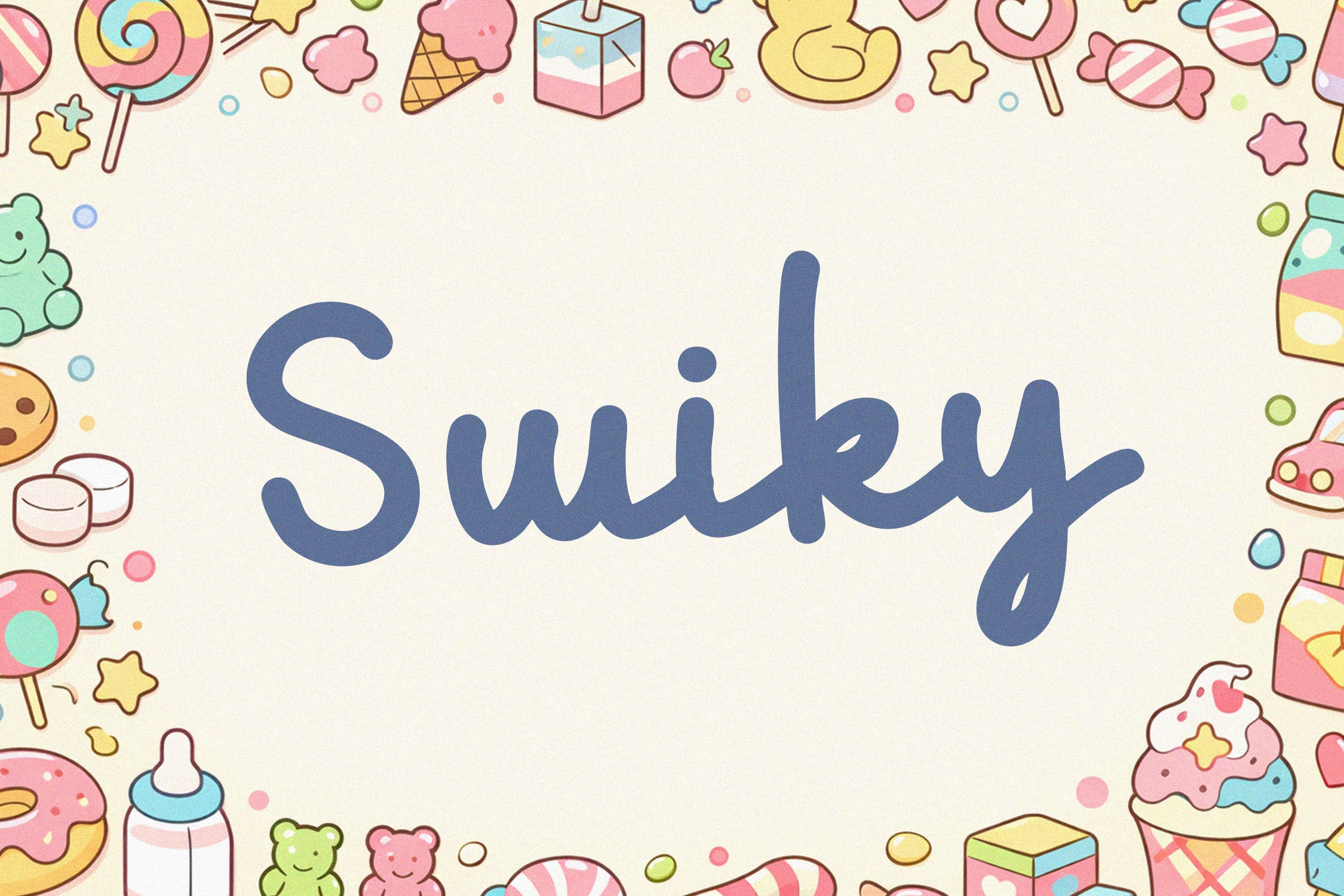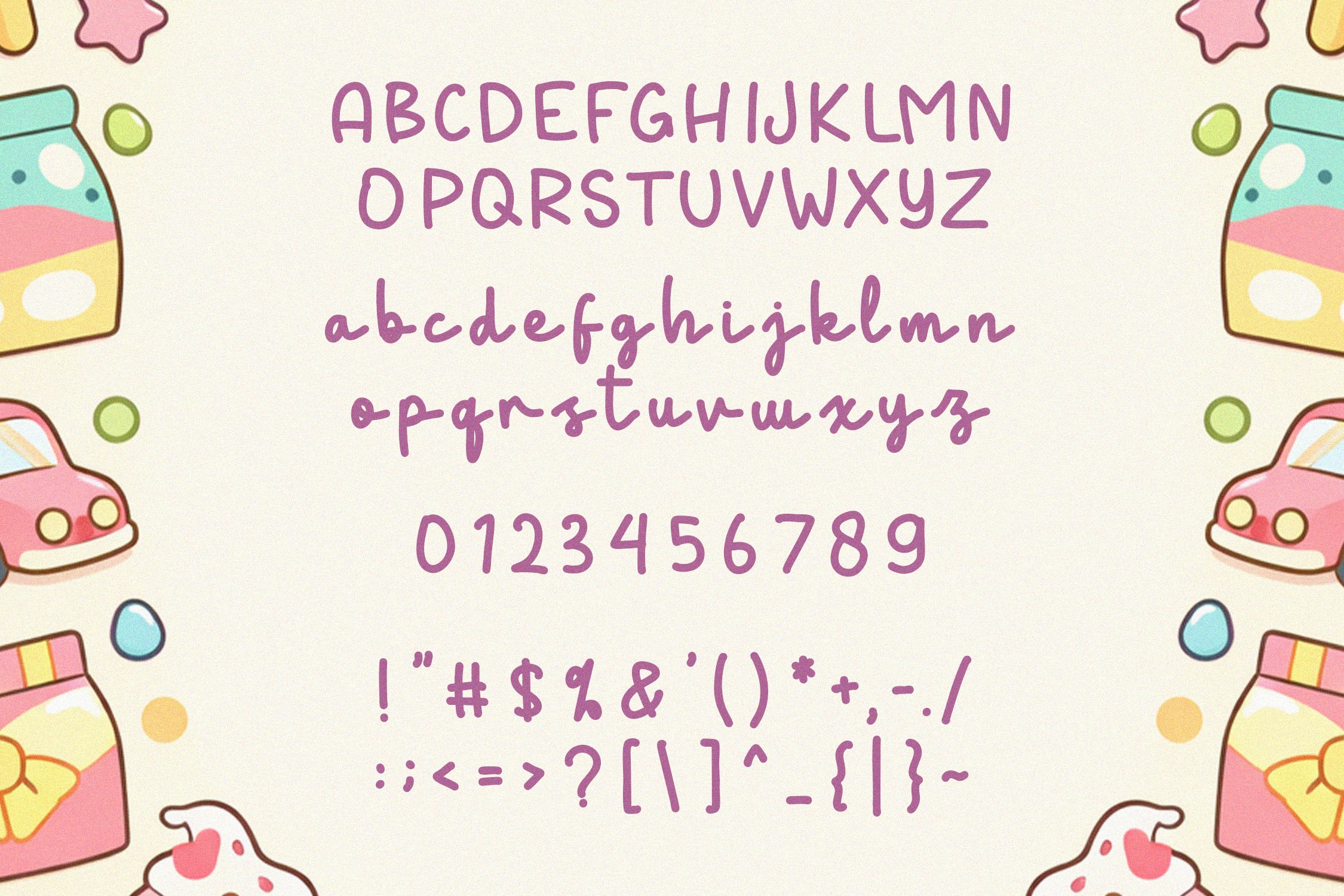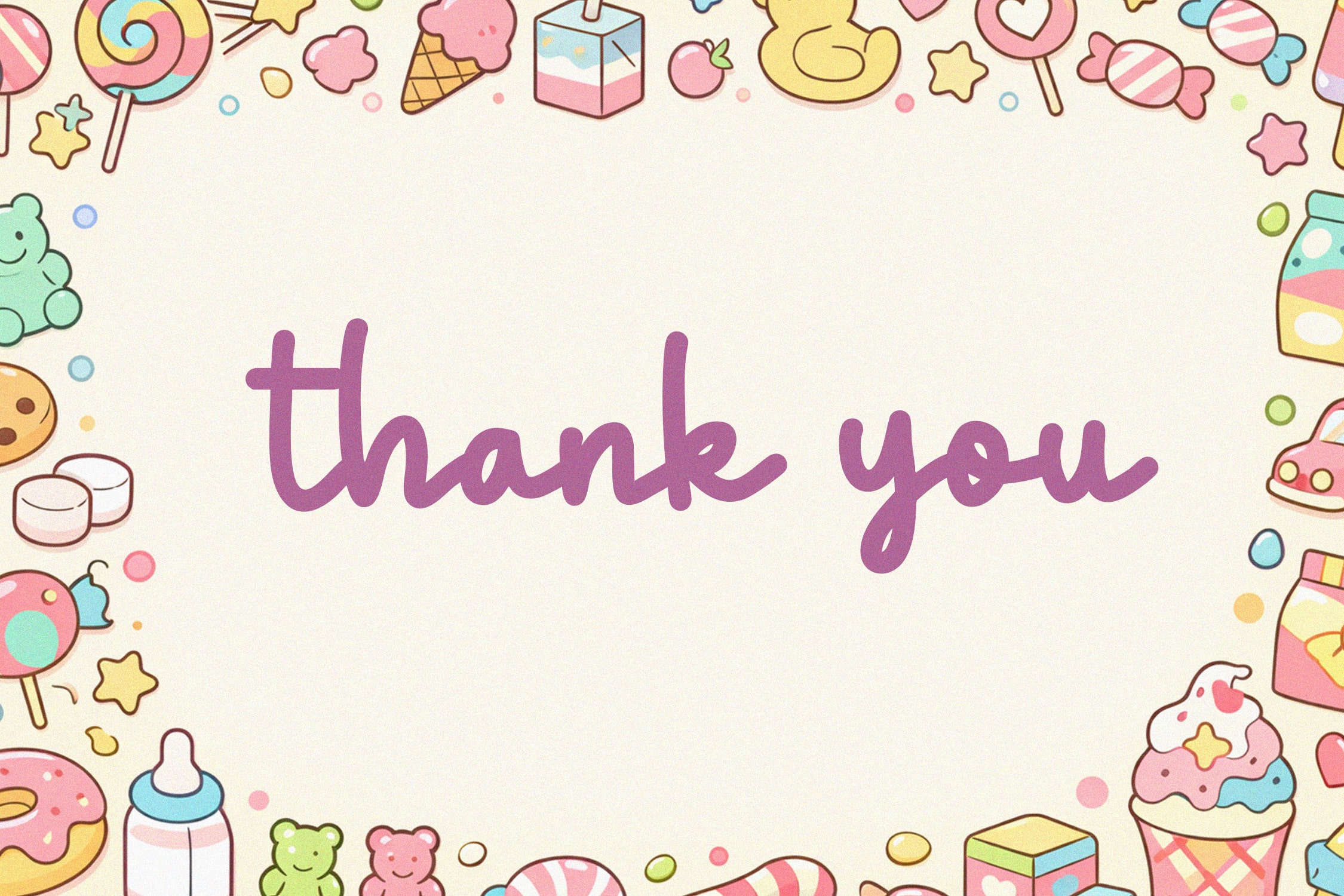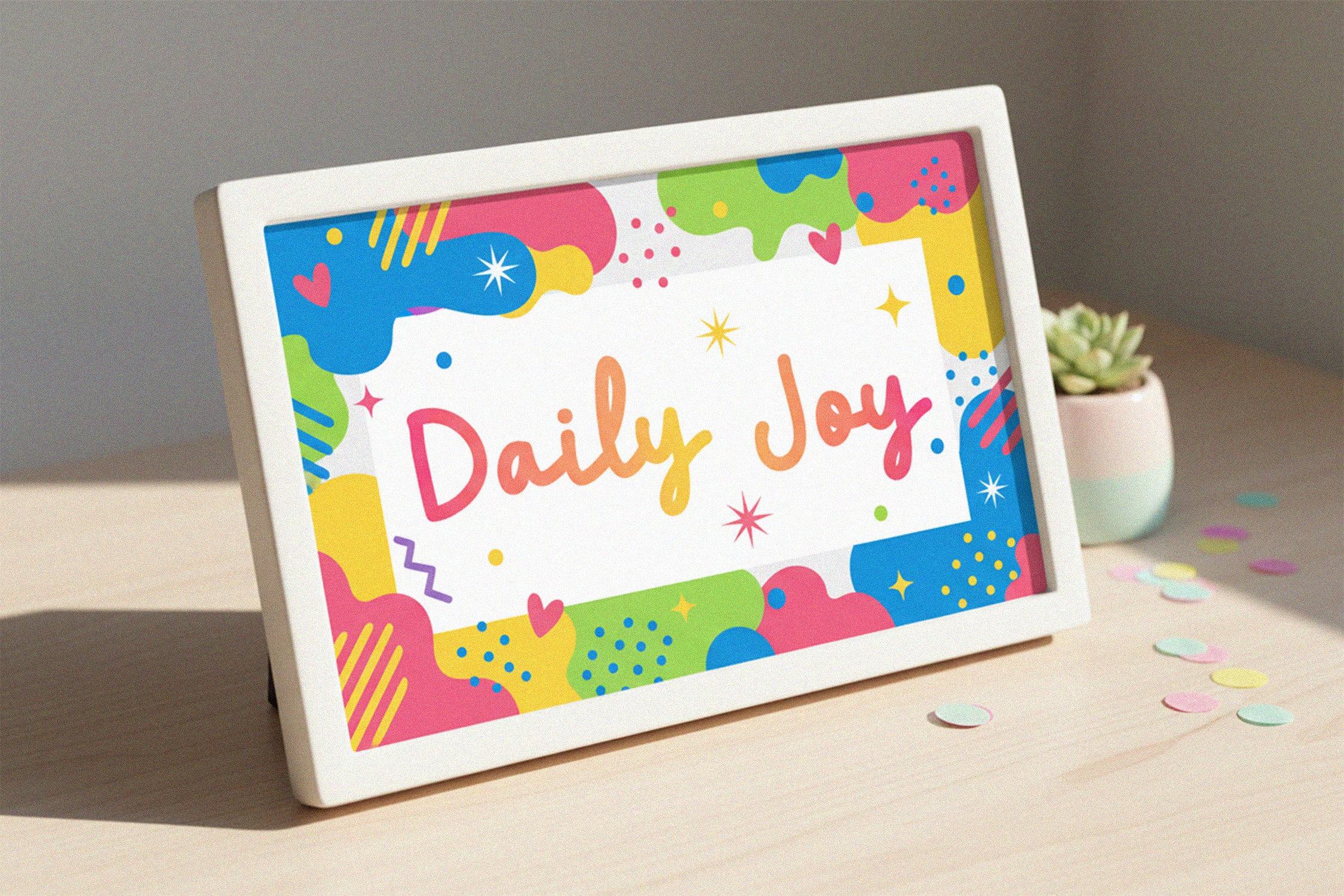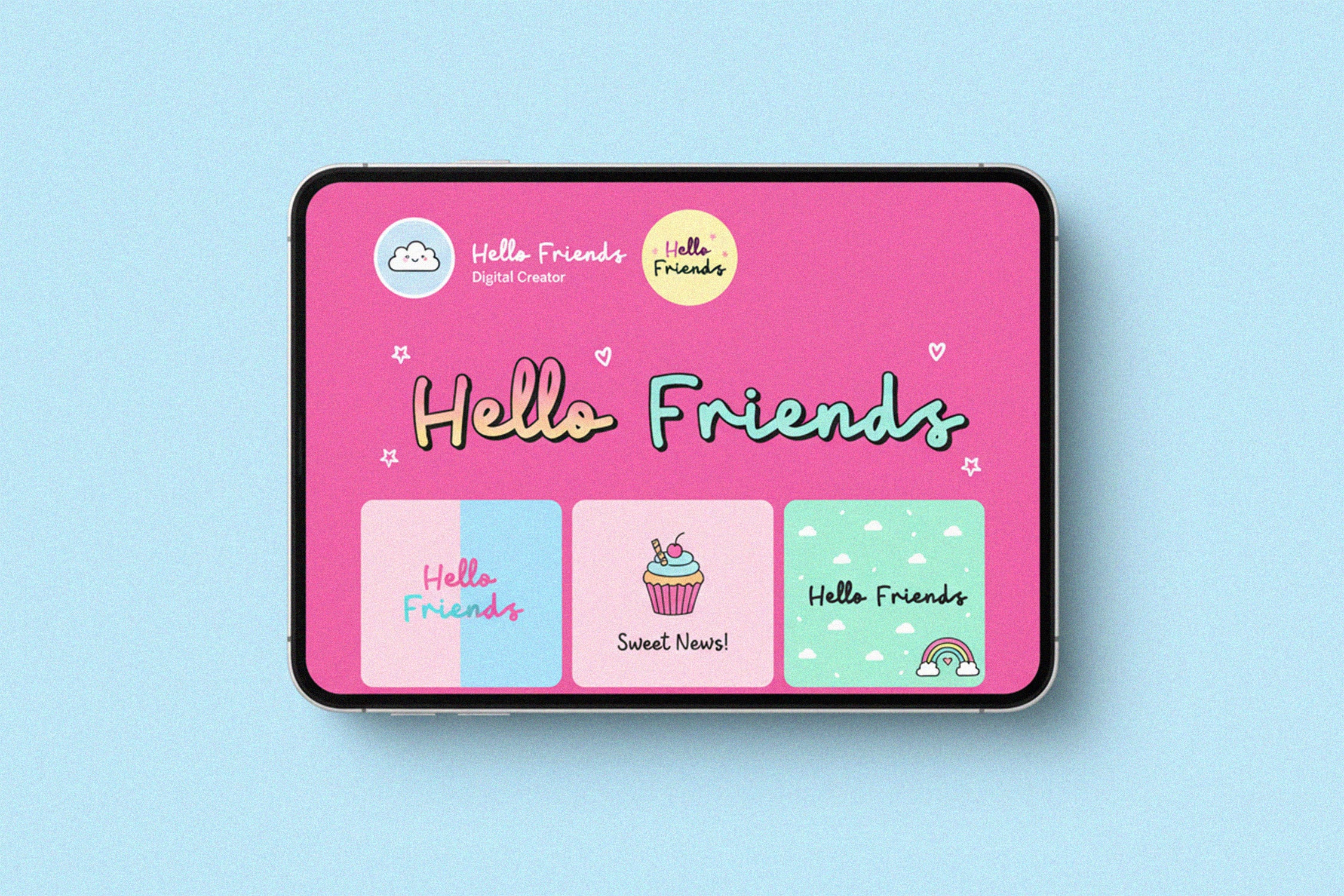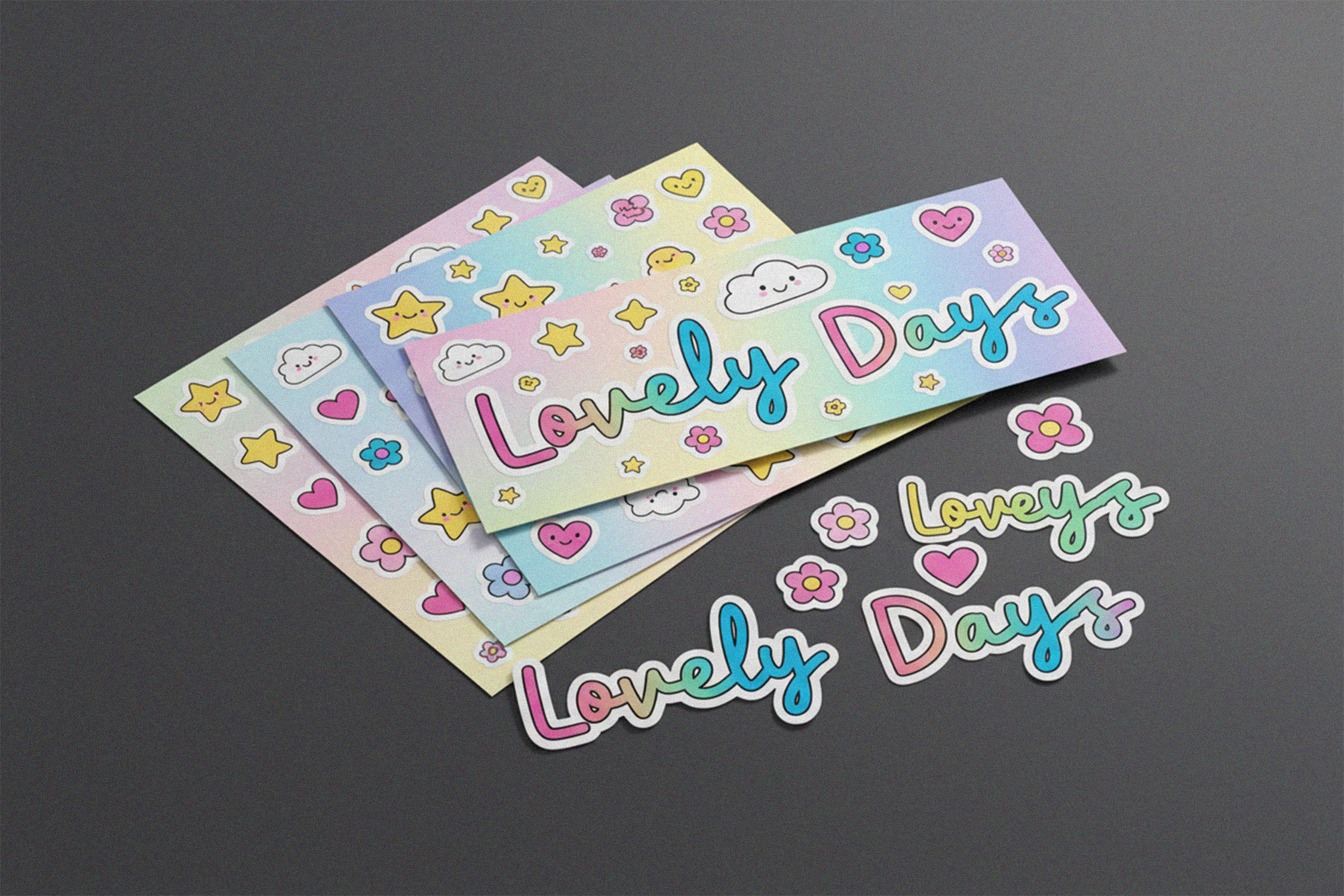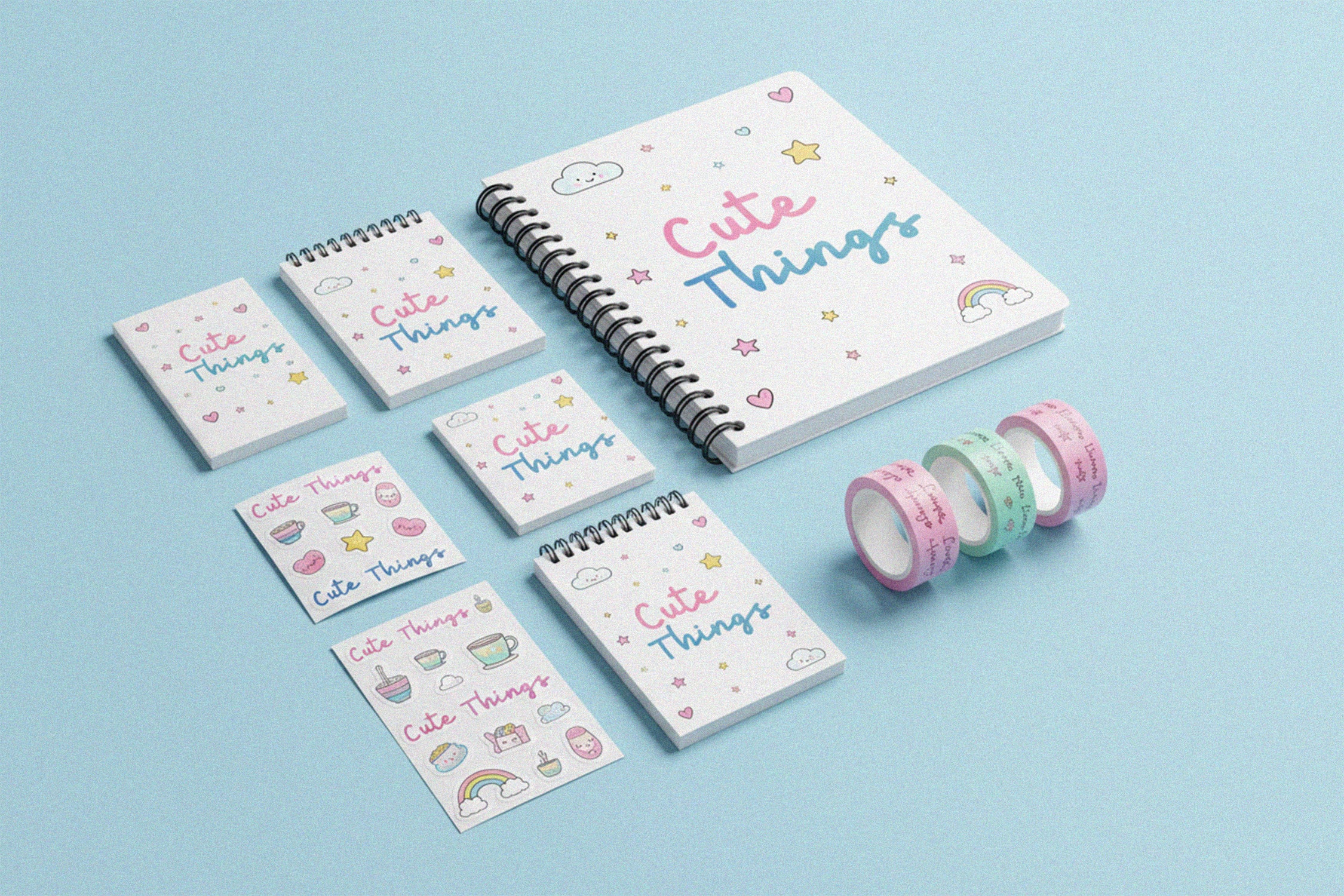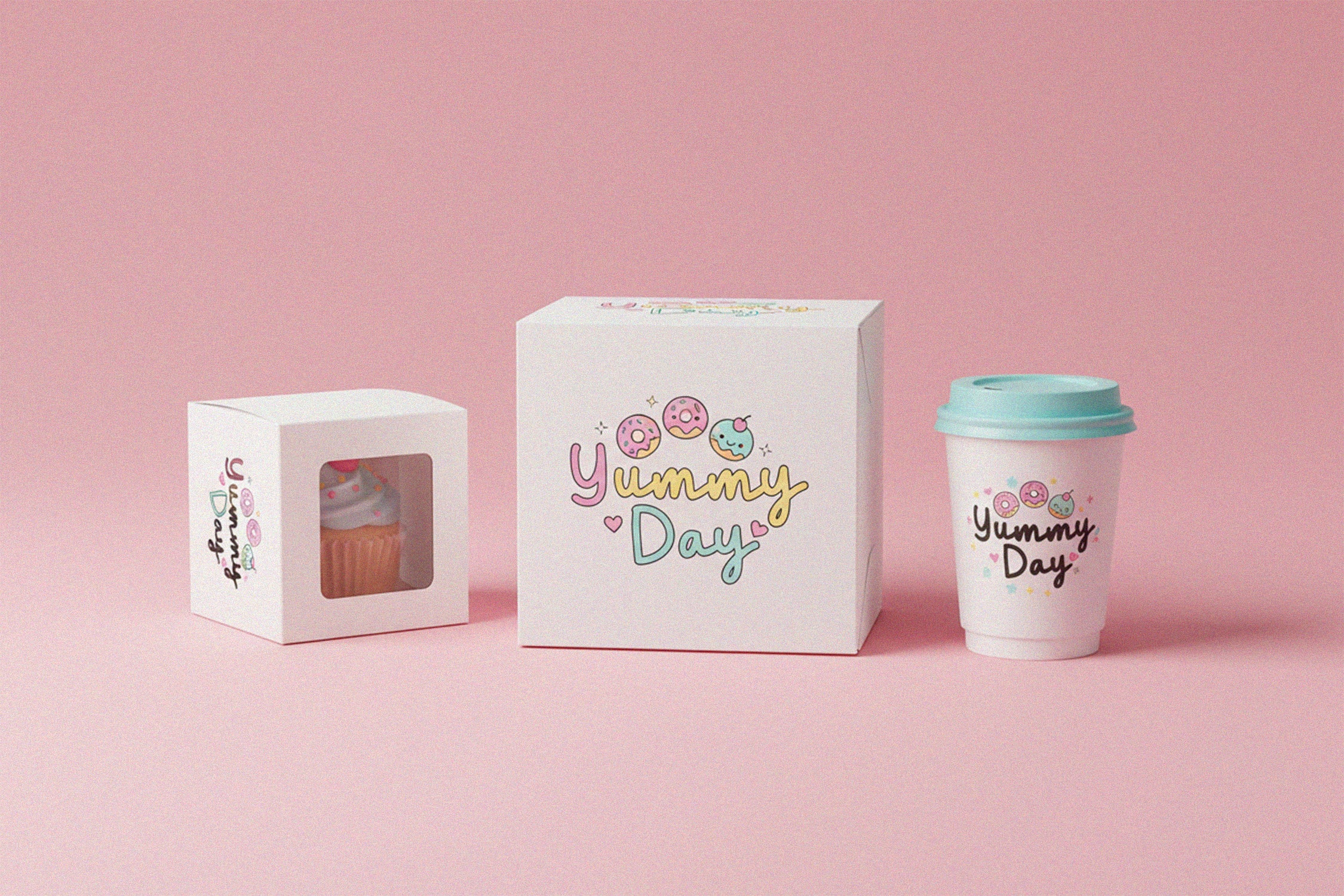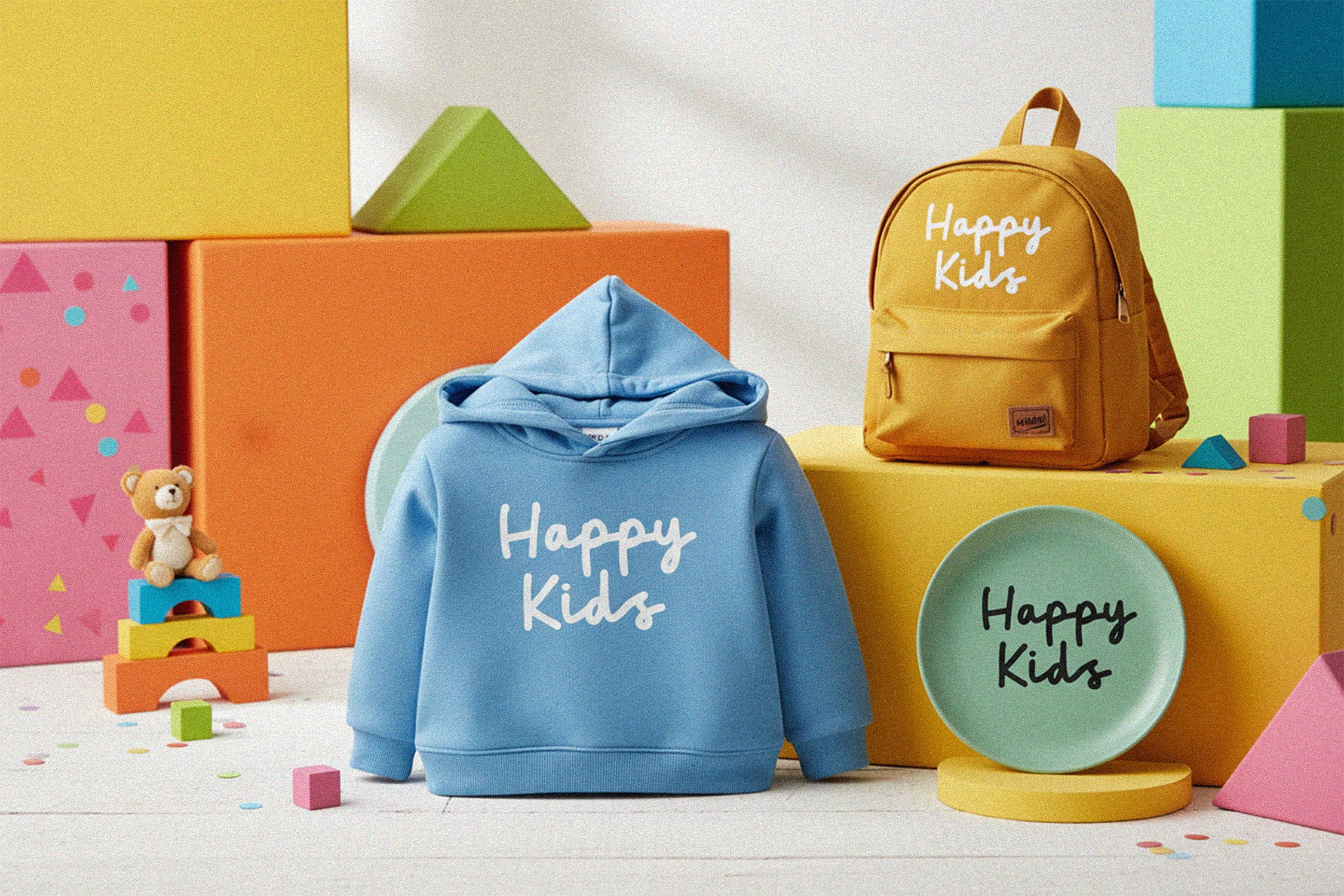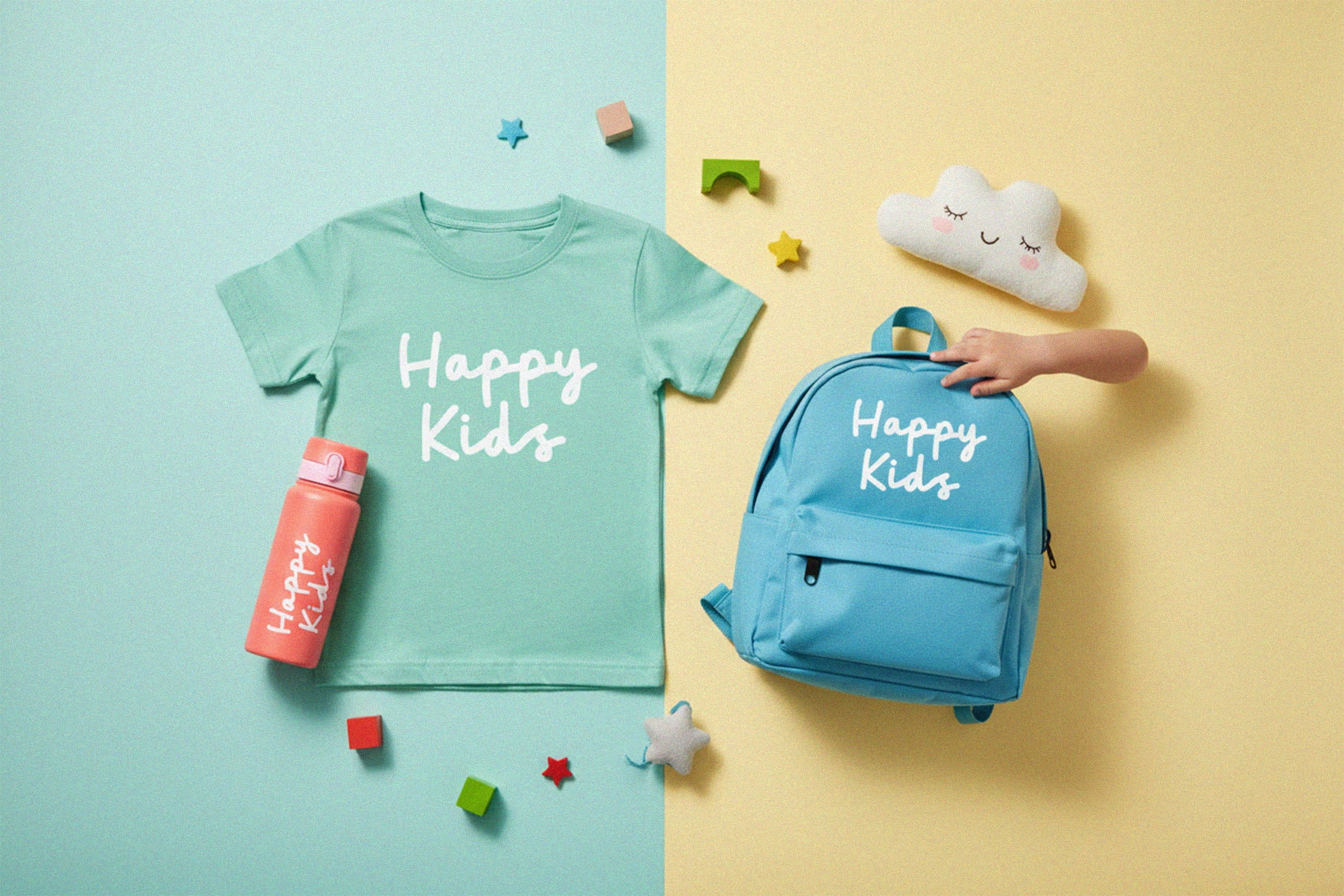
Swiky
Swiky Playful Monoline Script Font is a cheerful and friendly typeface designed to add joy and personality to your creative projects. Featuring smooth monoline strokes with a playful handwritten flow, Swiky is perfect for kids apparel, cute stickers, children’s products, packaging, playful branding, and all kinds of adorable designs. Its rounded shapes and lively rhythm create a warm, approachable feel that instantly attracts attention while remaining clean and readable. Swiky balances fun and simplicity, making it versatile for both digital and print use. Whether you’re designing for young audiences or adding a cute twist to your visuals, Swiky brings charm and happiness to every layout.
Swiky – Playful Monoline Script Font